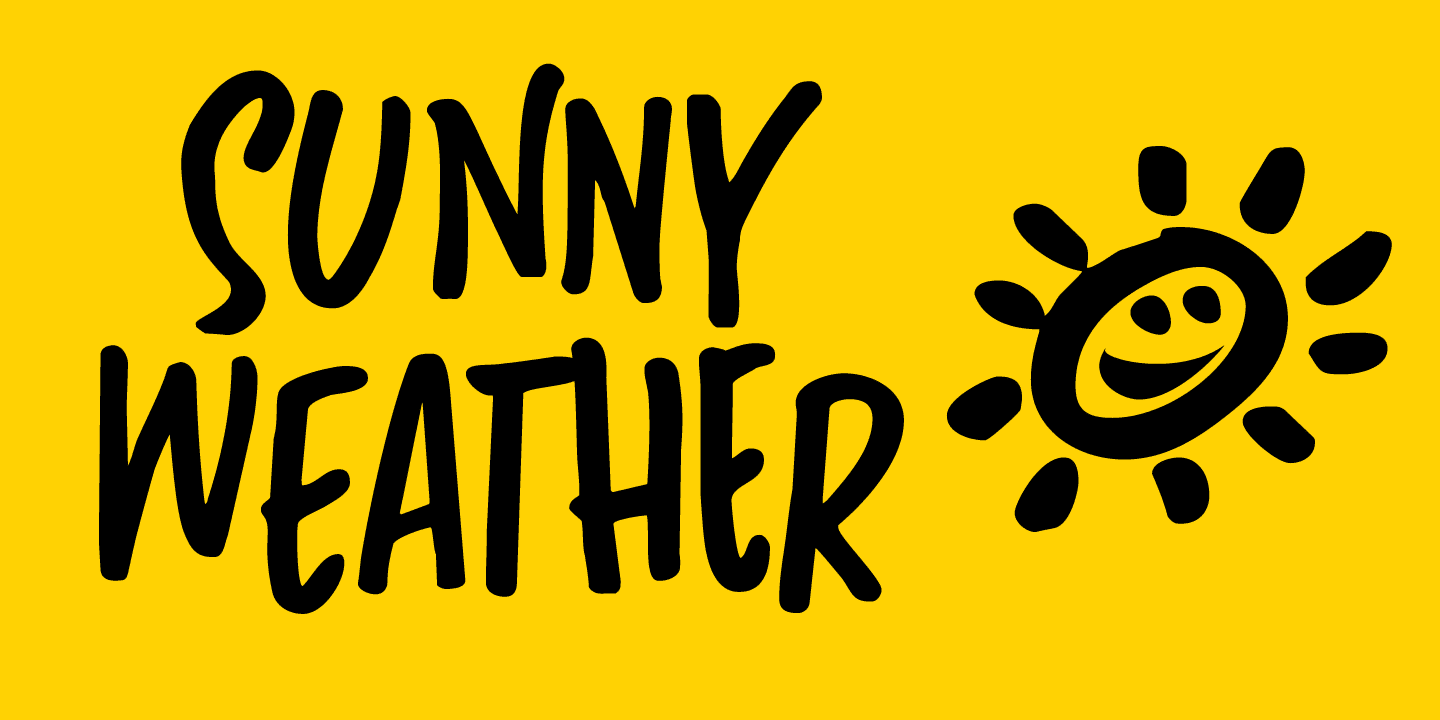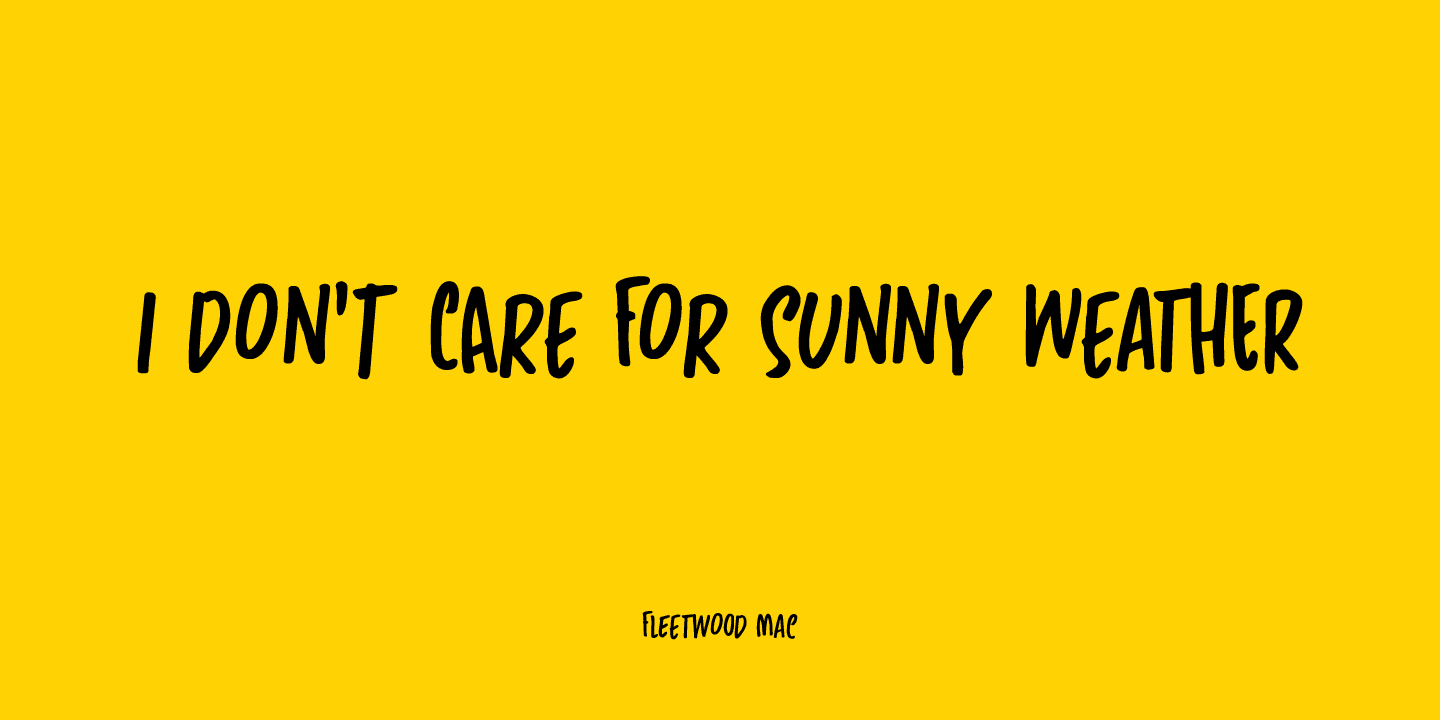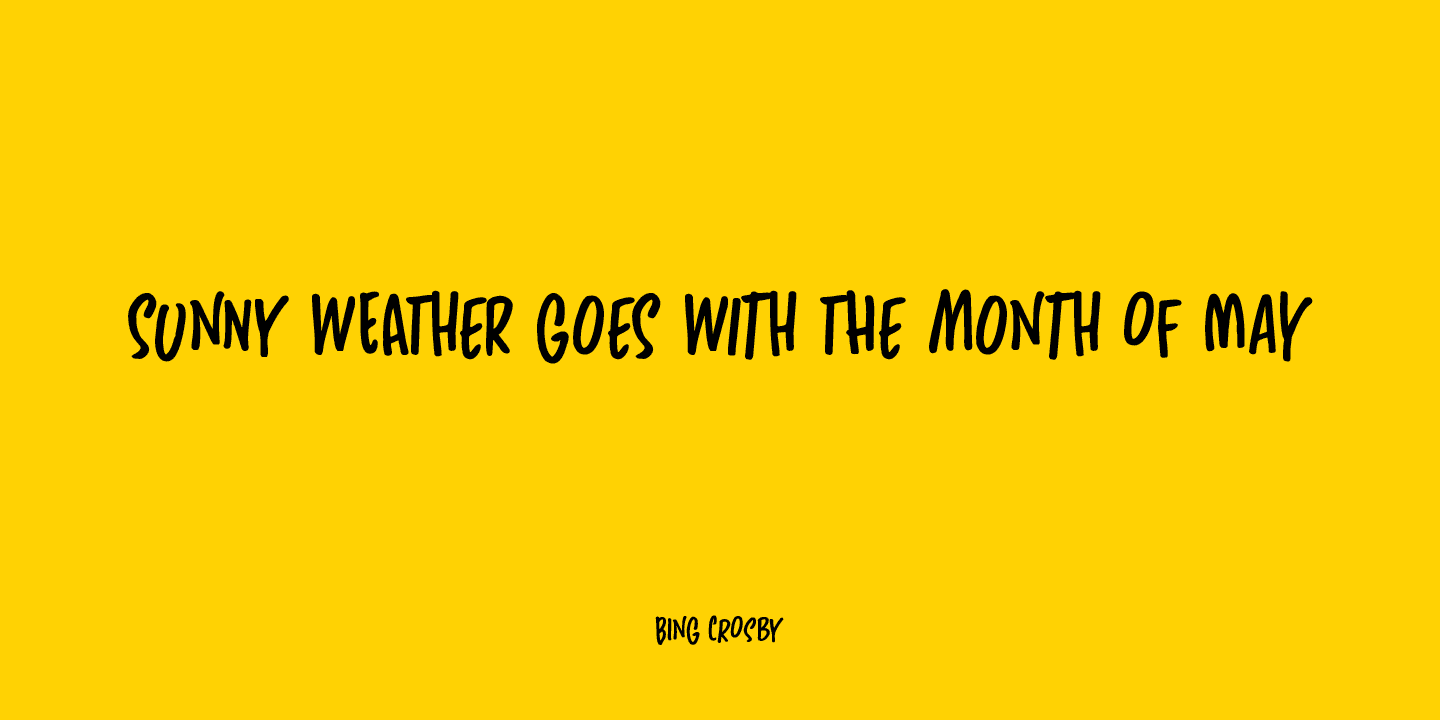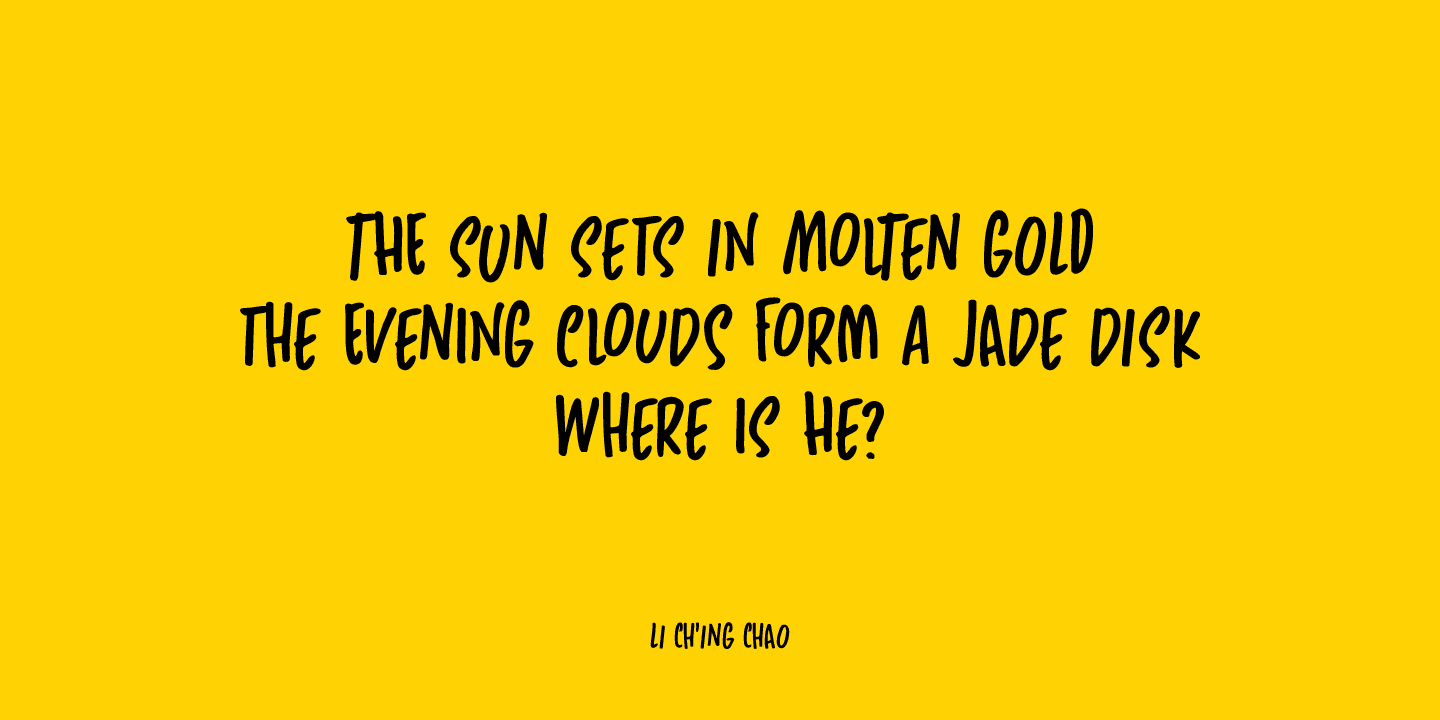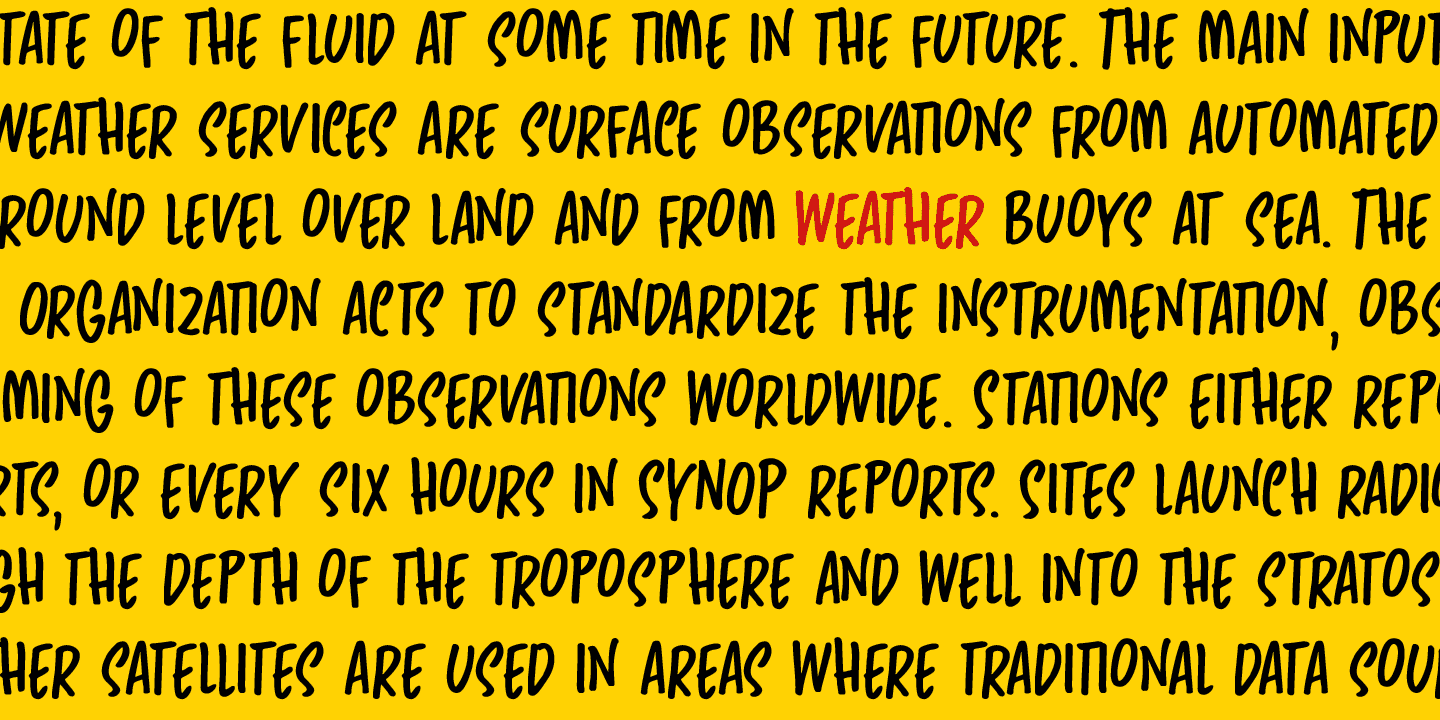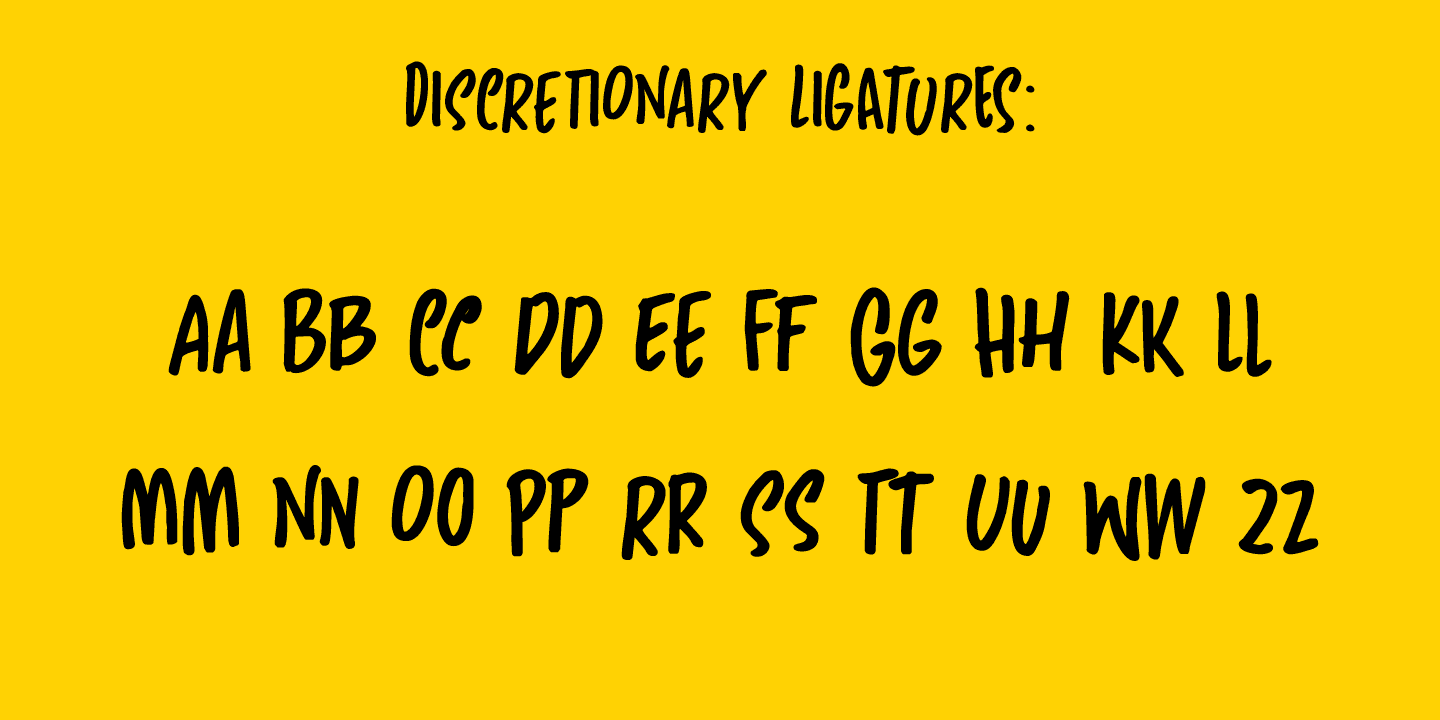
Spring is in the air! My chickens are broody and are sitting on an ever increasing pile of eggs; my fruit trees are budding and the sun is shining! Sunny Weather is a happy kind of font: it was handwritten, using a Sharpie pen. It comes with double letter ligatures and a good dose of vitamin D!